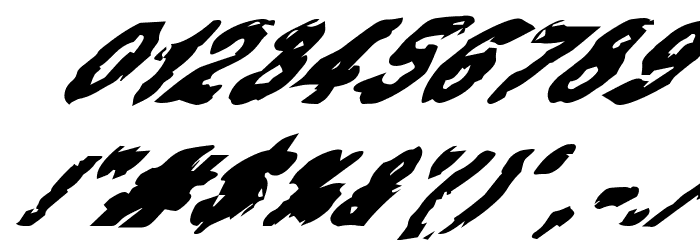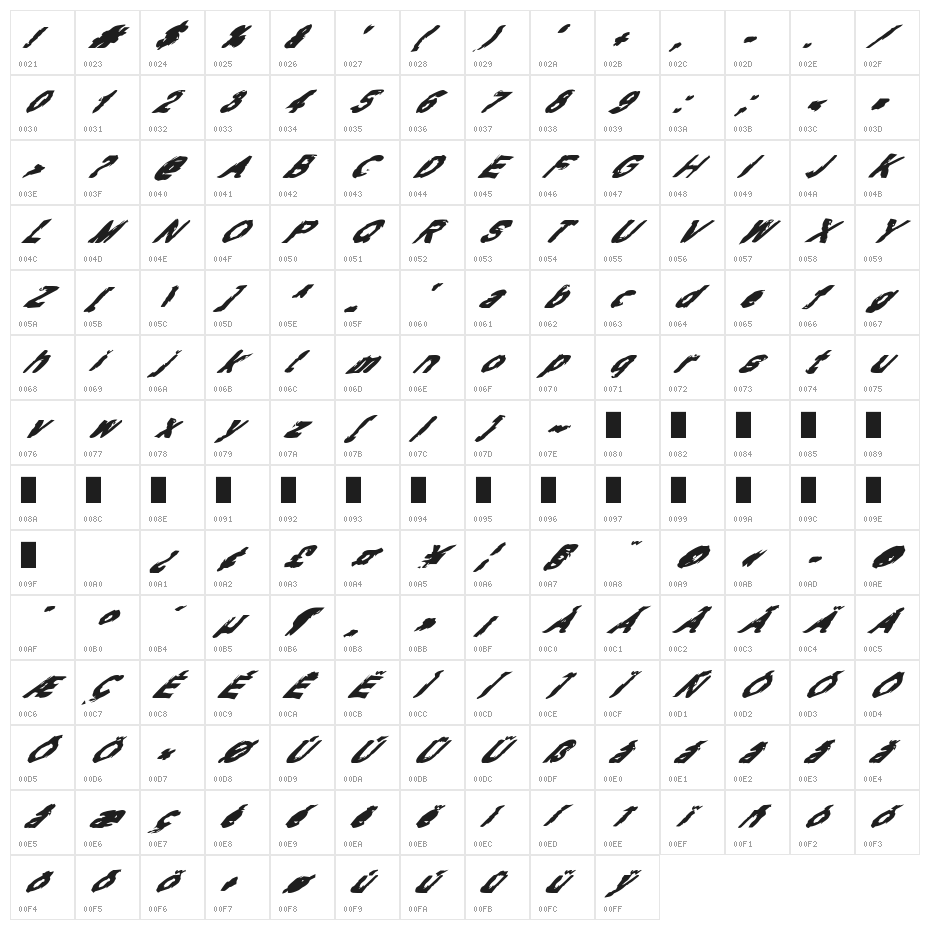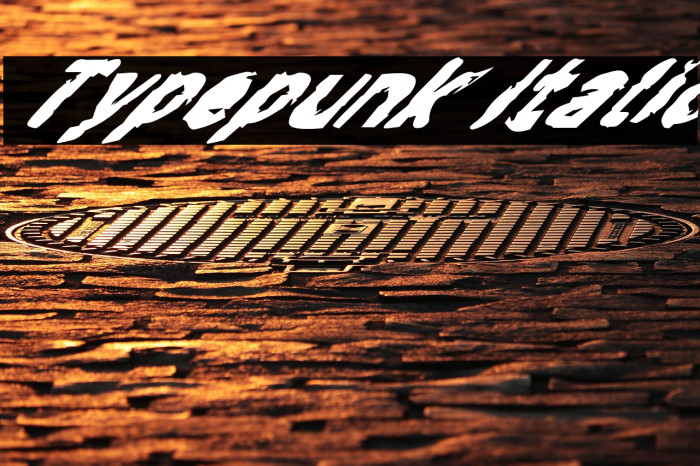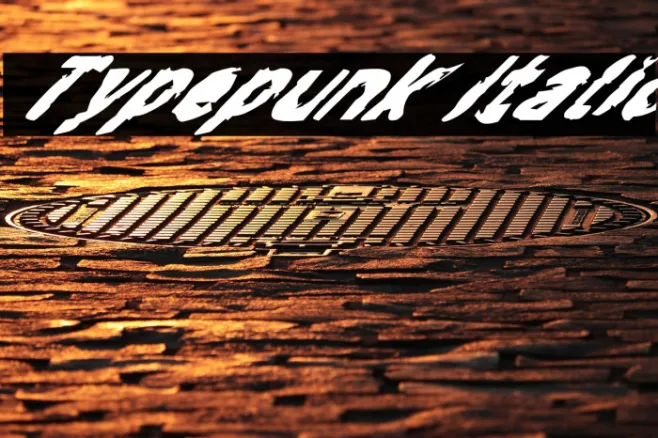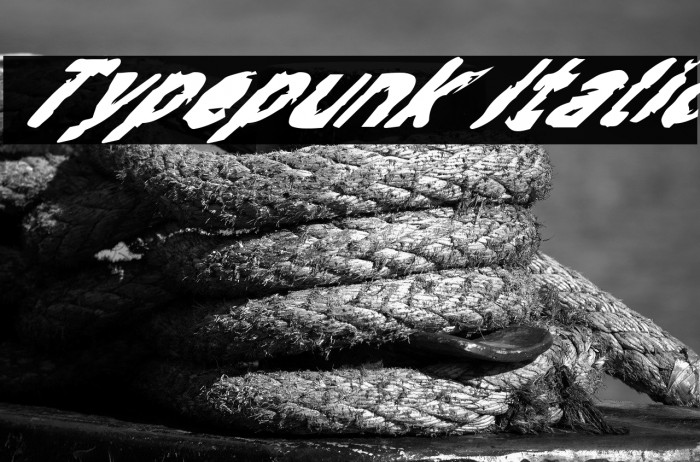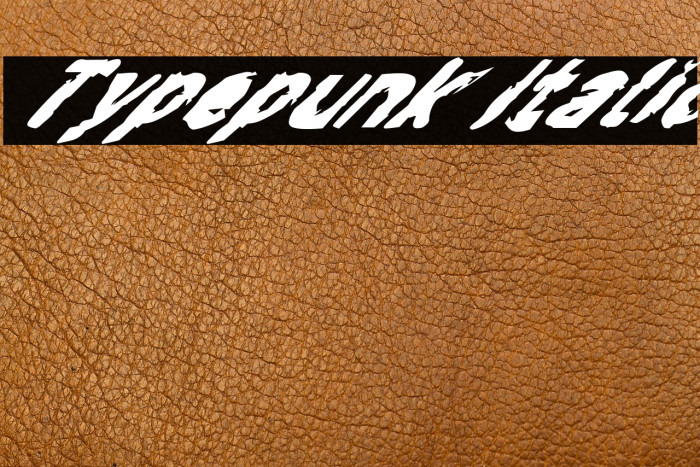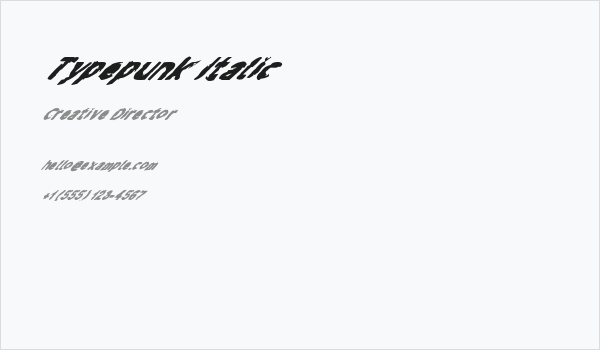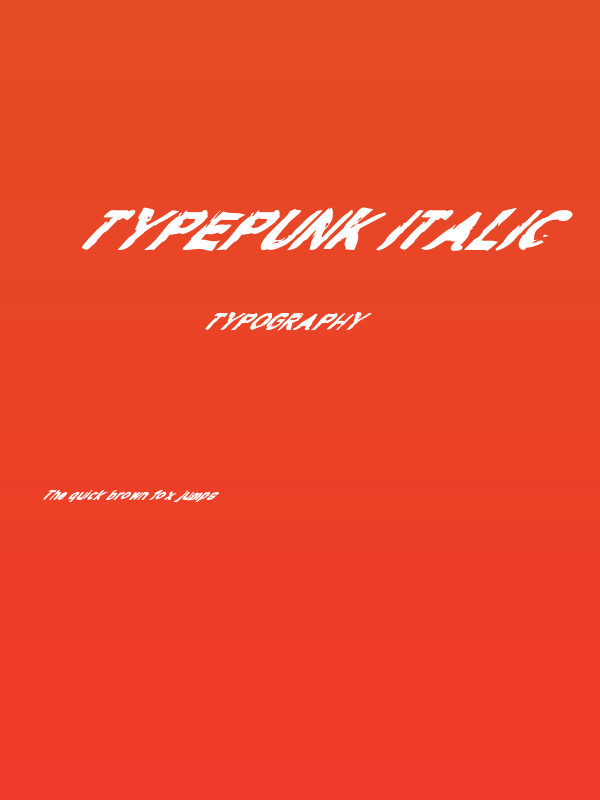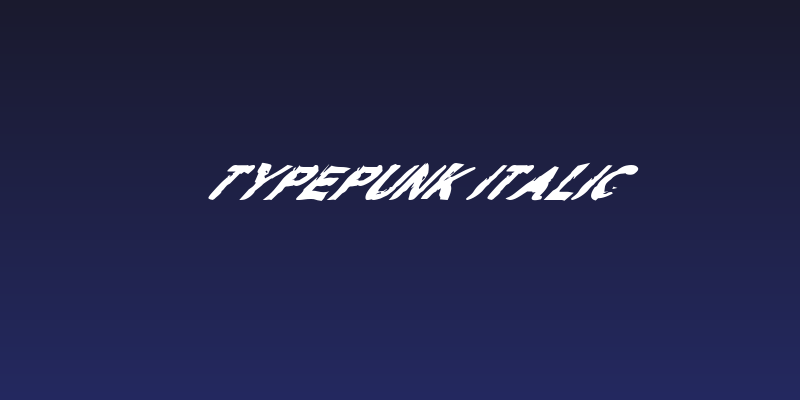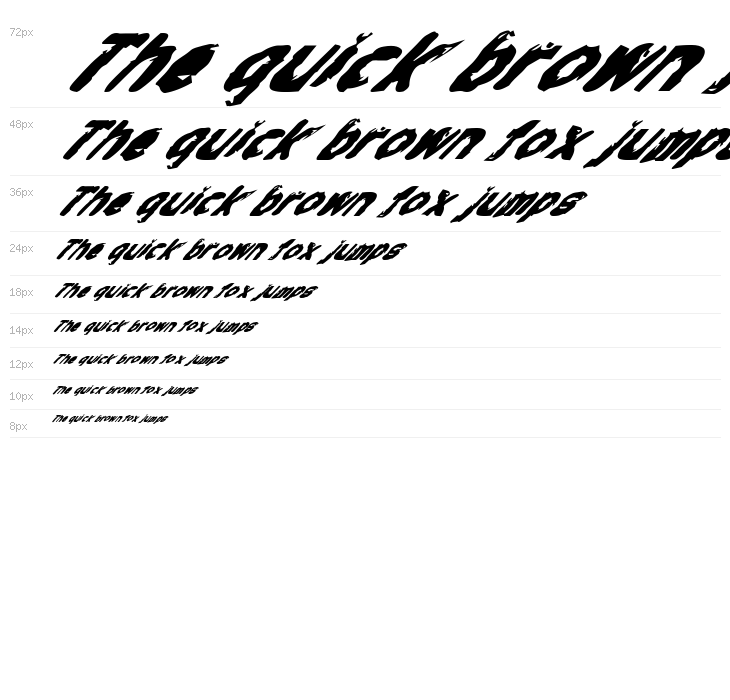
Typepunk Italic Font
Typepunk Italic Description
This font features a bold and dynamic style with a strong italic slant, creating a sense of movement and energy. The characters are heavily stylized with jagged edges and irregular shapes, giving it a punk-inspired, rebellious look. The strokes are thick and uneven, adding to the chaotic and edgy aesthetic. This font is highly decorative, making it stand out with its unique and unconventional design. The uppercase and lowercase letters maintain a consistent style, while the numbers and special characters follow the same bold and energetic theme.
| Proposed Projects | Ideal for music album covers, edgy posters, streetwear branding, and any project requiring a bold, rebellious aesthetic. |